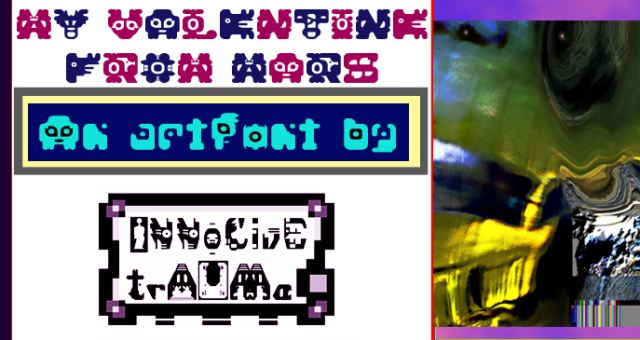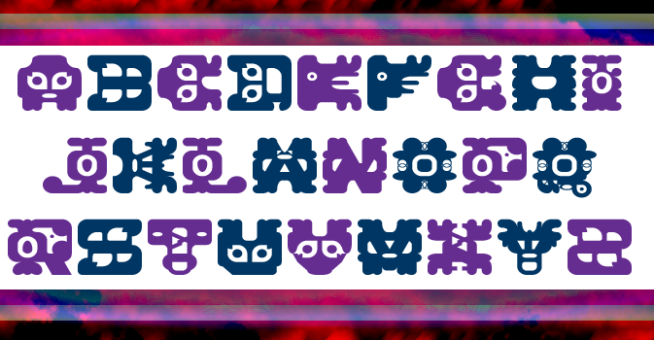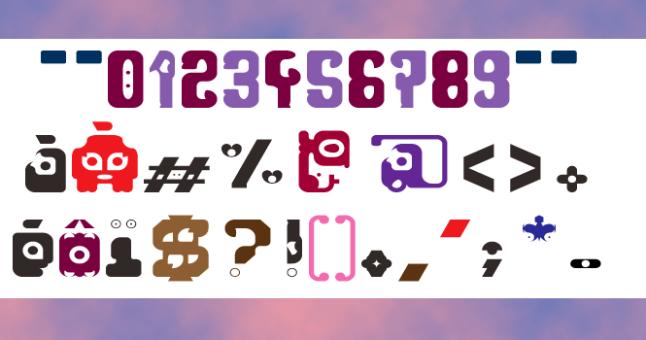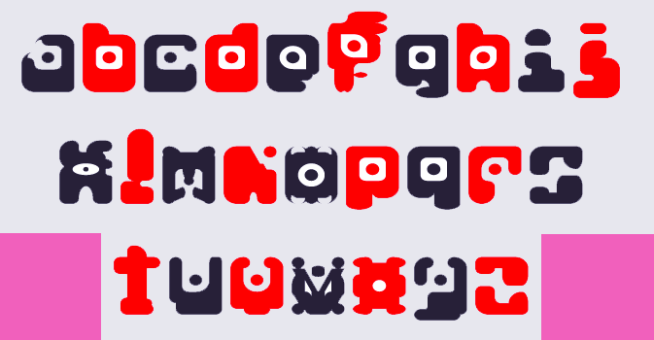
trAUMa 27 / My Valentine From Mars
"My Valentine From Mars", like all the "trAUMa" series, works at the frontier between Art & Type Design, Figuration & Abstraction, each font is a comprehensive world in which every glyph is a "living" entity. But put together they can produce your messages in the most accurate way.